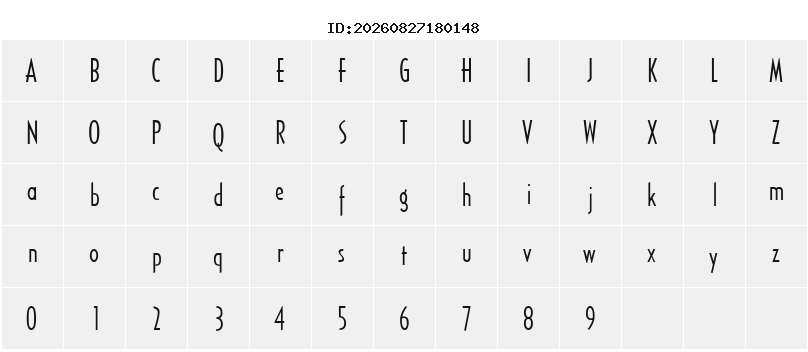
tsp zero 1.ttf is a modern, elegant sans-serif font designed for ultimate readability and visual harmony. Perfect for branding, headlines, web design, and print materials.